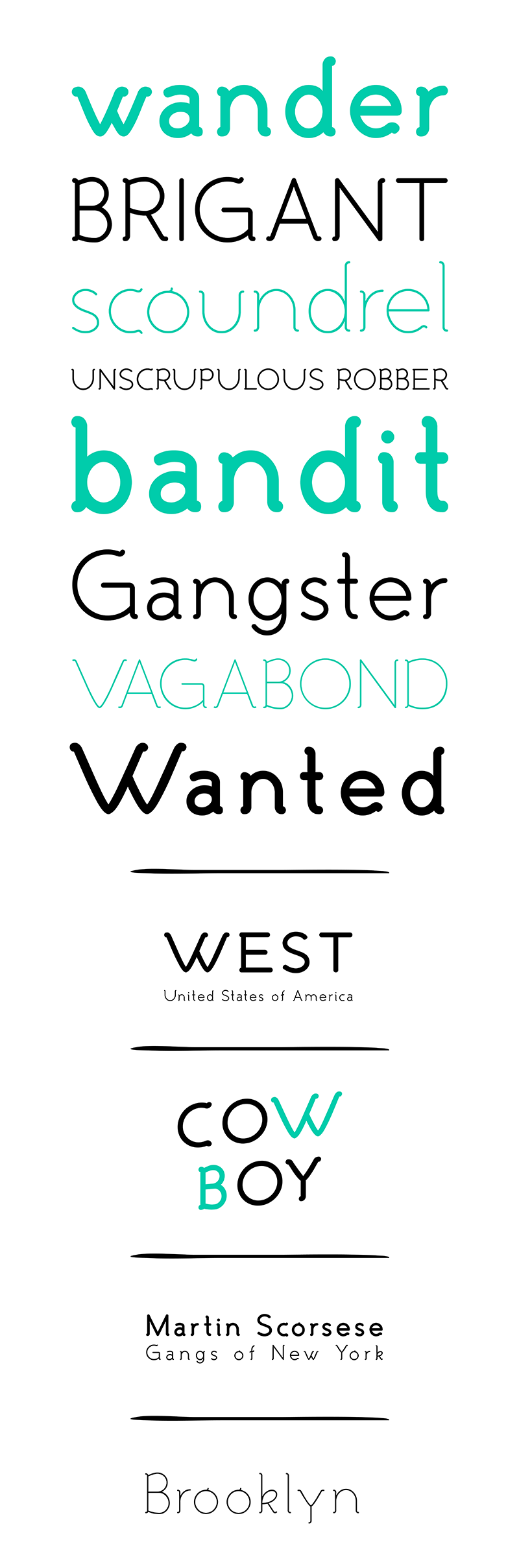
Malandrino is a Decorative Font. In this font the playful rounded Serifs pop out from the geometric shapes, giving a nice lively feeling. It could be called a Geometric Serif Font with remarkable Display characteristics, but it also fit in long text blocks. The height difference between Uppercase and Smallcase make it more suitable for Typography than Web. Malandrino Family: Malandrino Regular Malandrino Bold Malandrino Light FULL version available here > https://www.monofonts.com/products/malandrino For commercial use, you can purchase the font at: https://www.monofonts.com/products/malandrino For more info on our license: http://www.monofonts.com/license |